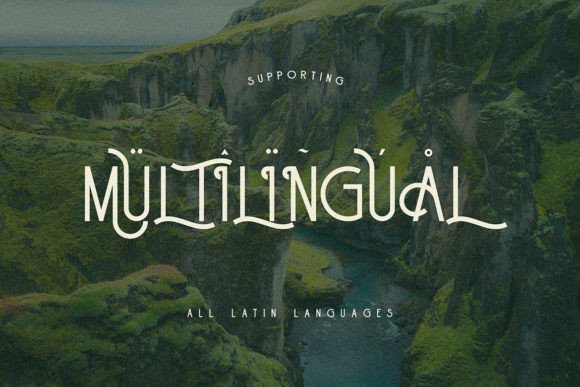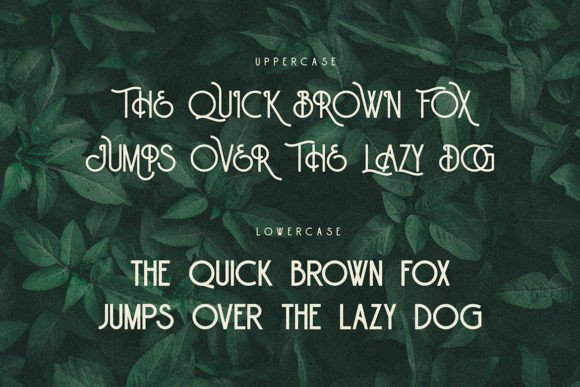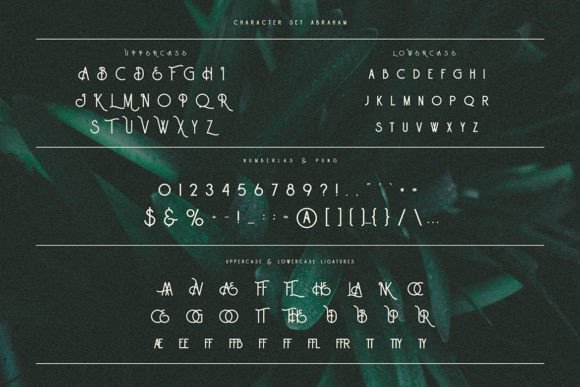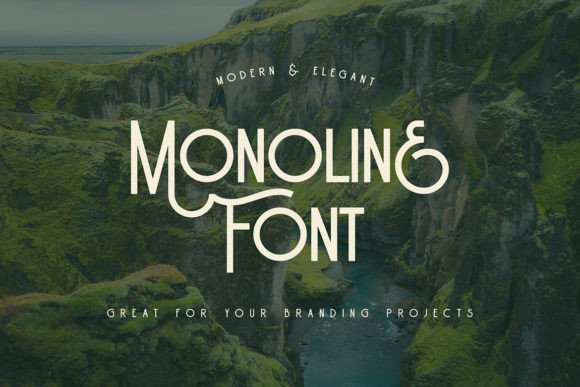
Discover the Elegance of Abraham Font
As a designer, have you ever been stuck on a project, struggling to find the perfect font to bring your vision to life? We’ve all been there – pouring over font libraries, searching for that one elusive style that captures the essence of our creative idea. For me, it was the moment I stumbled upon Abraham Font. Its sleek, modern design instantly resonated with me, and I knew I had to learn more.
Abraham Font is a sophisticated sans-serif font, expertly crafted for those who demand the best for their exclusive and trendy projects. With its clean lines and sharp edges, this font is sure to give your designs an eye-catching, high-end look that will leave a lasting impression. And with its PUA encoding, accessing all the delightful glyphs and swashes is a breeze, allowing you to unleash your creativity without any restrictions.
Whether you’re a seasoned pro or a budding designer, Abraham Font is an invaluable addition to your toolkit. Its versatility and elegance make it a must-have for any project that requires a touch of sophistication and style.
Abraham Font Key Features
- Unique Characteristics: Abraham Font is designed with a unique blend of traditional and modern elements, featuring intricate details and ornate flourishes
Abraham Font Review
Abraham Font is a beautiful, high-end sans-serif font that has captured my attention with its unique style. ✨ The font’s clean lines, geometric shapes, and subtle nuances make it perfect for use in modern designs, such as logos, titles, and headings.
- ✨ Unique and modern design that sets it apart from other sans-serif fonts.
- ✨ Excellent legibility, making it perfect for body text and long passages.
- ✨ Highly customizable, with a range of weights and styles to choose from.
- ⚠️ Limited support for certain languages and scripts, which may limit its use in multilingual designs.
- ⚠️ Can appear somewhat generic or overused if not used thoughtfully and sparingly.
- ⚠️ May not be the best choice for designs that require a more traditional or classic look.
Overall, Abraham Font is a solid choice for designers who want a modern, high-end sans-serif font. While it has some limitations, its unique design and excellent legibility make it a great addition to any design toolkit.
Practical Application Guide for Abraham Font
For best results, use Abraham Font in headings or titles to add a touch of elegance to your design.
For best results, use Abraham Font in conjunction with other elegant fonts to create a sophisticated look.
For best results, use Abraham Font in headings or titles to add a touch of elegance to your presentation or document.
Abraham Font is ideal for:
- Formal business presentations
- High-end branding and marketing materials
- Any design project that requires an elegant and sophisticated look
Remember to use Abraham Font in moderation to avoid overwhelming your design.
The recommended font size for the Abraham Font is between 12pt and 18pt, with a line height of 1.2 to 1.5 times the font size. This will ensure optimal readability and visual balance in your designs.